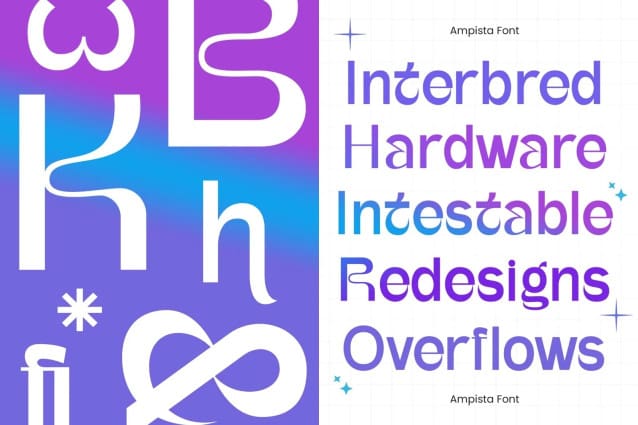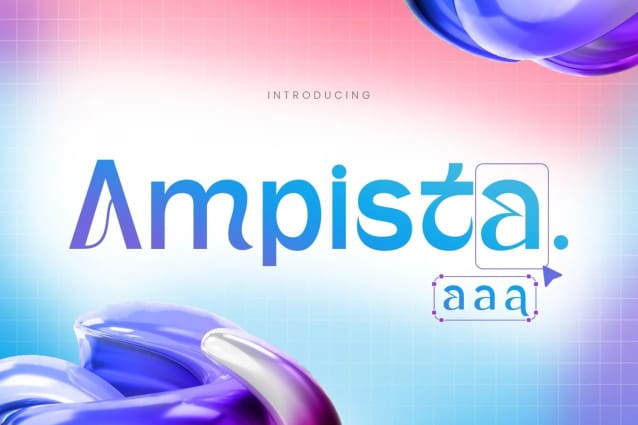
Ampista Font
Ampista Font is a modern, stylish font designed to elevate your logo branding projects with its sleek and sophisticated look. Ideal for premium brands, this font combines contemporary design with luxurious alternates, offering an elegant, high-end feel perfect for industries like fashion, beauty, and lifestyle. Its clean lines and refined curves make it versatile for a wide range of applications, from logos to websites and promotional materials.
With Ampista Font, you can create a memorable and exclusive visual identity that speaks to quality and sophistication, ensuring your brand stands out in a competitive market. Whether you’re launching a new business or rebranding, Ampista delivers a polished and timeless aesthetic that leaves a lasting impression.